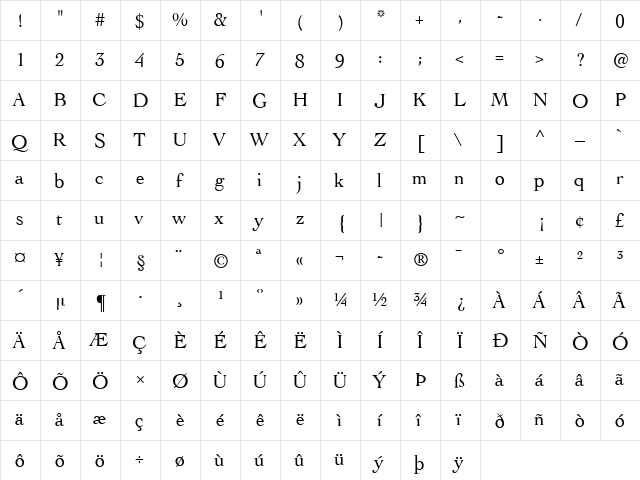
Badr LT Light
Design Context for Badr LT Typeface
Badr LT is a composed and adaptable typeface that performs quietly and consistently across a wide range of design contexts. Its slender proportions lend an understated elegance to any composition.